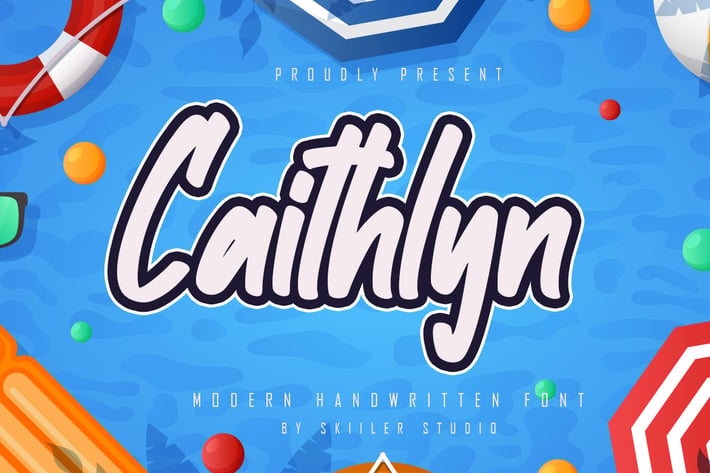
Caithlyn - Modern Handwritten Font
Caithlyn Handwritten Display Font. It looks beautiful on a variety of designs requiring a personalized style, This font is PUA encoded which means you can access all of the glyphs and swashes with ease!
+ Ligature
+ Basic Latin Language Support (AÀÁÂÃÄÅCÇDÐEÈÉÊËIÌÍÎÏÑOØÒÓÔÕÖUÙÜÚÛWYÝŸÆß )